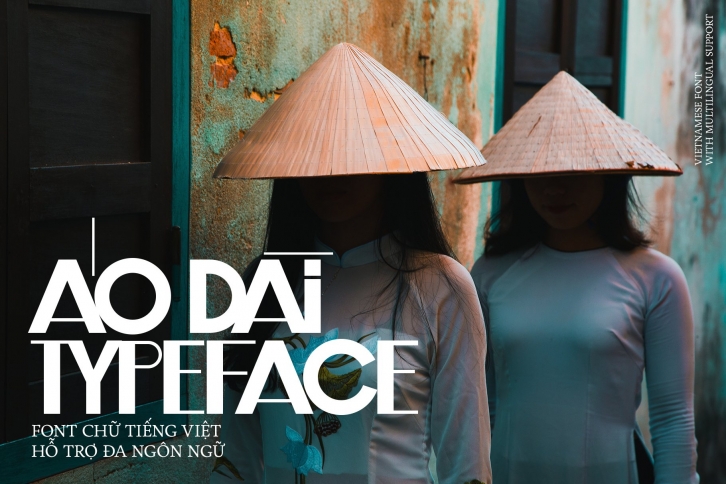
Aodai Typeface (Aodai - pronounced /ˈaÊŠ ˈdaɪ/ or /ou-dahy/, Vietnamese: Ão dà i, the traditional and national dress usually worn by Vietnamese women) is a typeface created by Manh Nguyen, a designer based in Hanoi, Vietnam. In an effort of bringing back the oldstyle vibes of hand-painting retro panels, banners and covers books published by local publisher in the late 20th century, Nguyen decided to pay homage to the charming yet discreet oriental beauty of Viet women wearing the ao dai; the font’s characteristics have to be something not quite expressively sleazy but still embraces discreet and prudent sexiness of an Indochina woman. Nguyen chose to create a geometric, modern, unicase, display sans-serif with high contrast mimicking the fashionable Didone typestyle, with elegant ratios on delicate backbone system of the anatomy, alongside with one-of-a-kind punctuation and mixed diacritical mark system (two distinct diacritical mark systems for uppercase and lowercase glyphs), noted with some twisted differences between two cases of some letters (i.e uppercase and lowercase O, C, Q, G etc.). To conserve and accentuate the imperfection of hand painting, the highly condensed kerning is added while the font is created and tested, and kerning between some combos of glyphs, i.e VAV, is also edited in the polishing process.